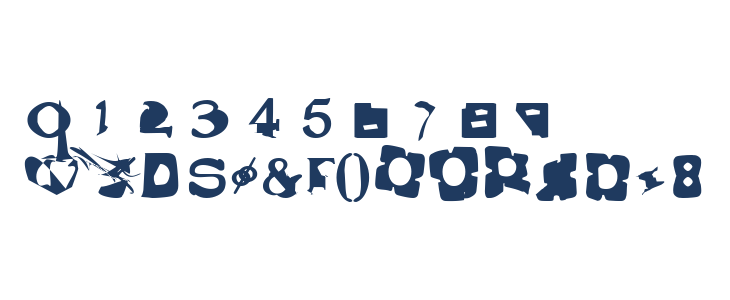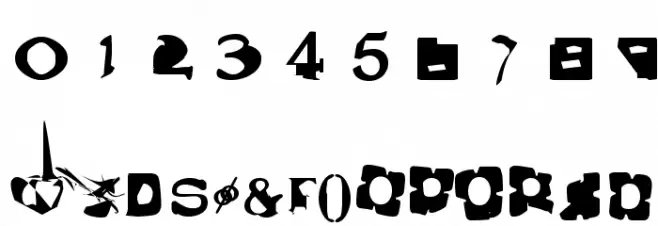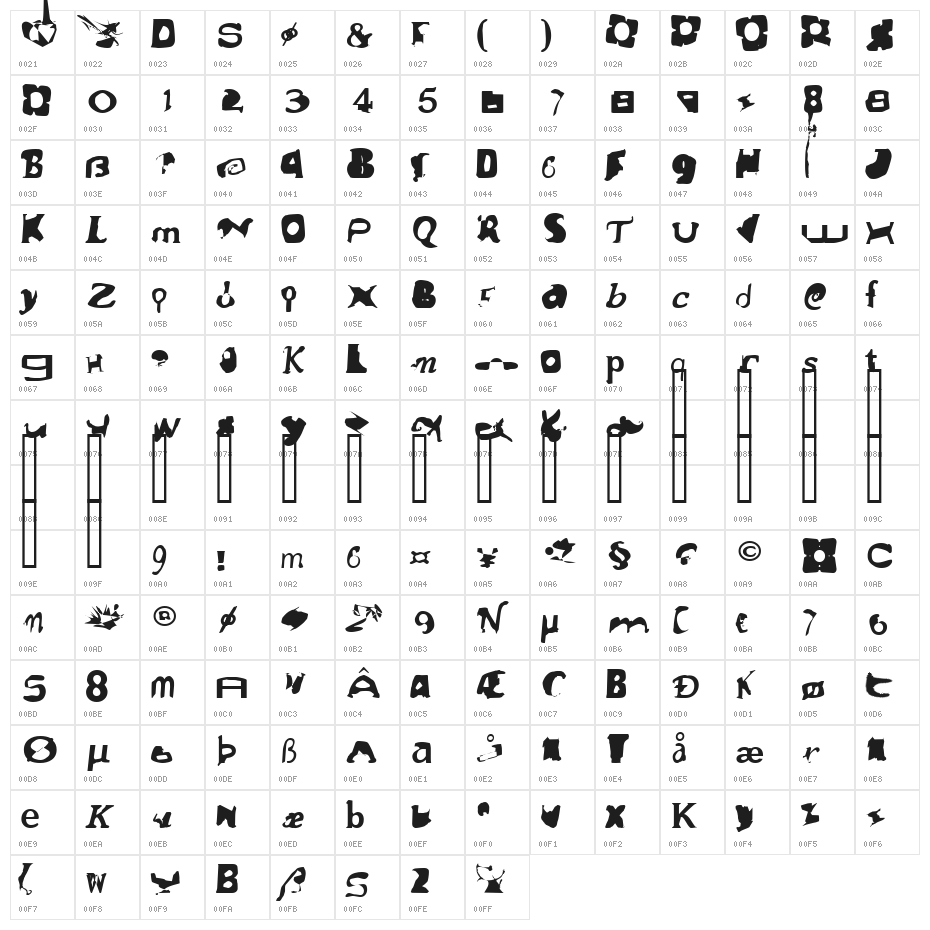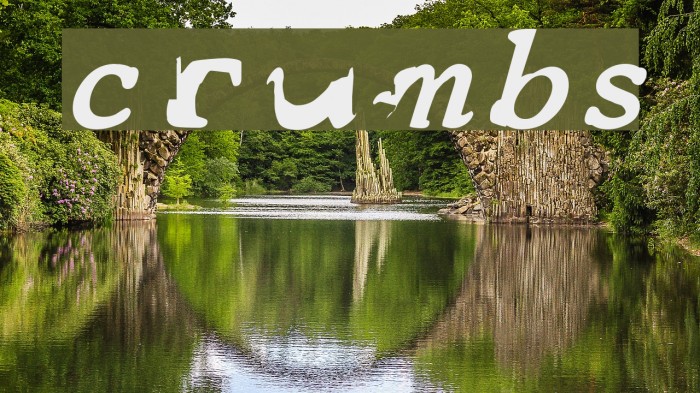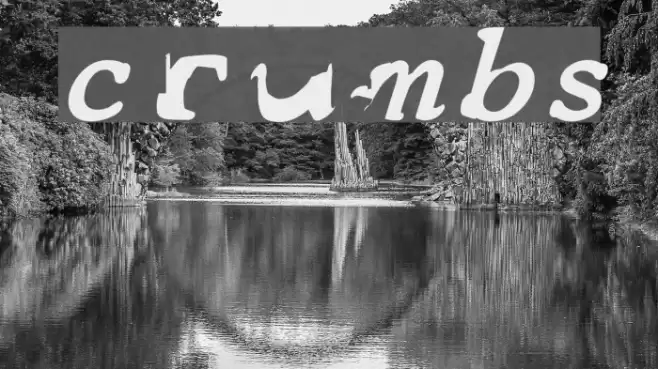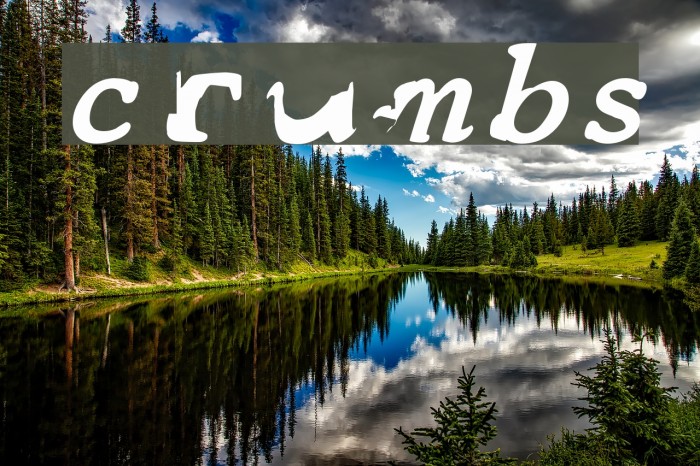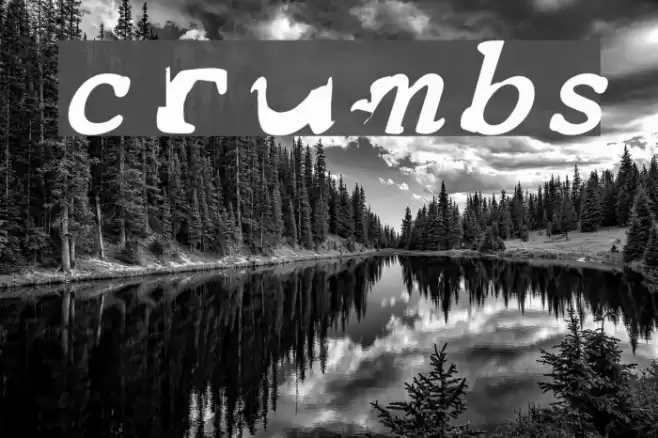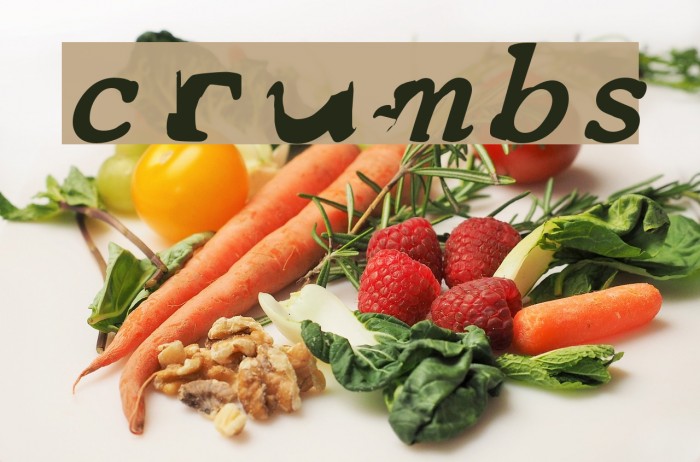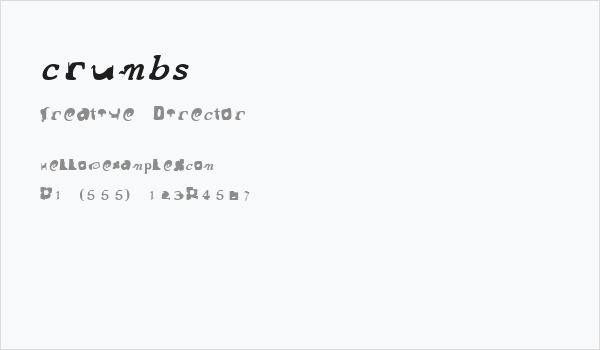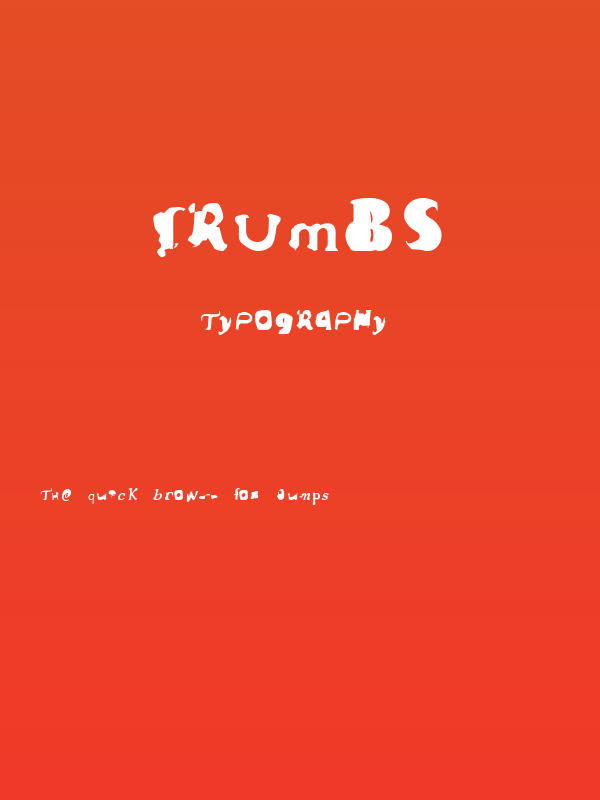
crumbs Font
crumbs Description
This font exhibits a highly creative and abstract design, with each character uniquely crafted to resemble a collage of shapes and forms. The letters are bold and irregular, featuring a mix of sharp angles and smooth curves, giving it a chaotic yet artistic appearance. The uppercase and lowercase letters maintain this eclectic style, with some characters incorporating elements like arrows or abstract symbols. Numbers and special characters follow the same unconventional design, making the font suitable for artistic and avant-garde projects. The overall look is striking and memorable, perfect for making a bold statement.
| Overall Style | Avant-garde |
| Use Case | Headlines, Artistic projects, Branding |
| Proposed Projects | Ideal for artistic posters, album covers, experimental design projects, and creative branding. |